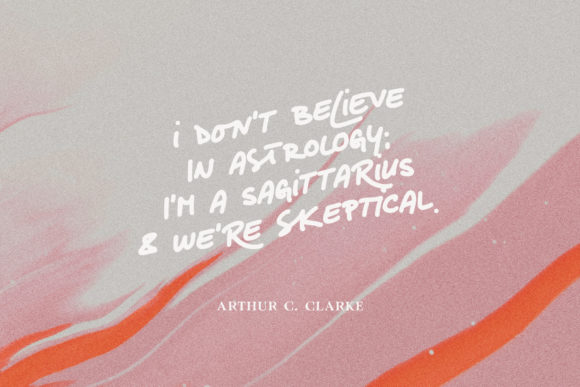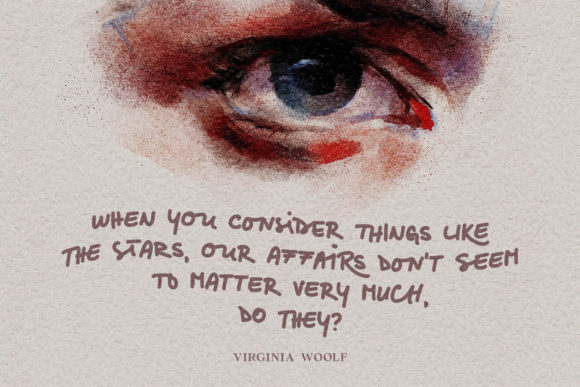
Quirky Sunflower Font
db-ku.com - Script & Handwritten -- Inspired by the new color of the season, Quirky Sunflower is a fresh take on a super playful handwritten font! Whether you need a new quote design or a social media post, it’s perfect for you. This font is PUA encoded, which means you can access all of the glyphs and swashes with ease!